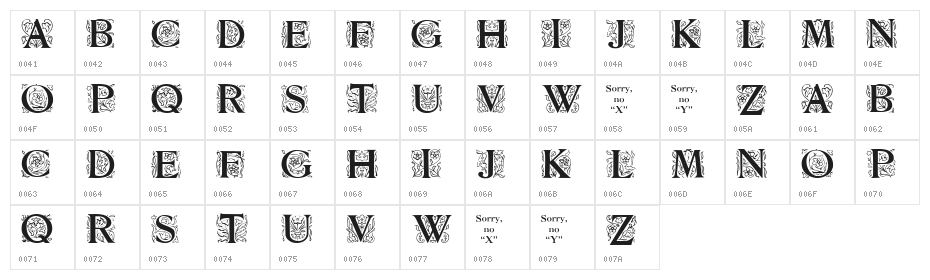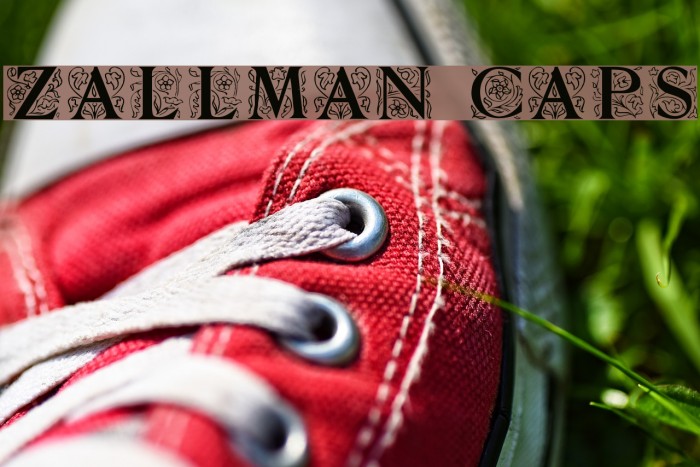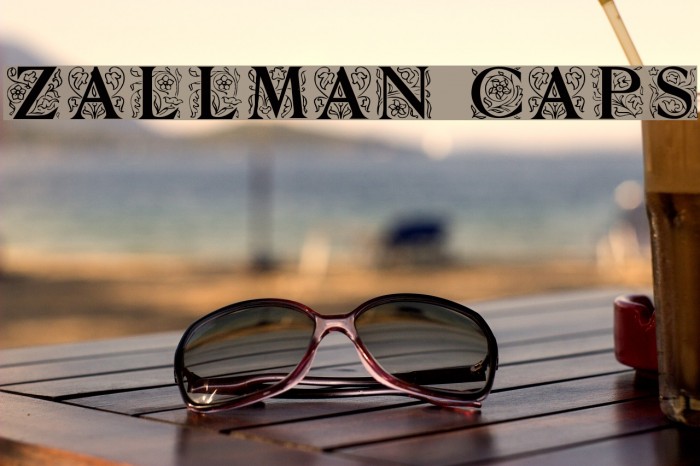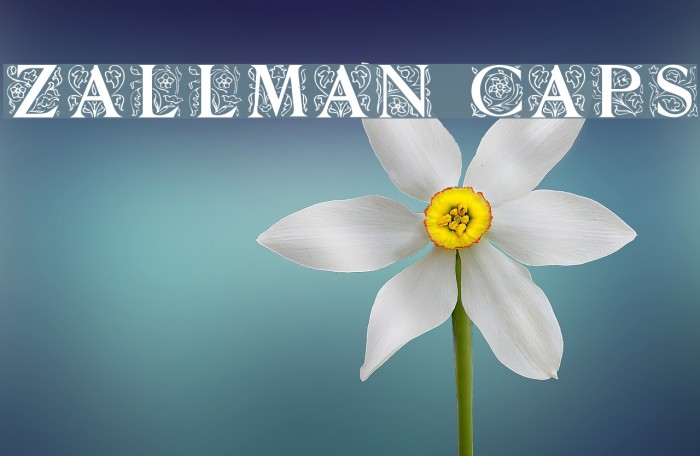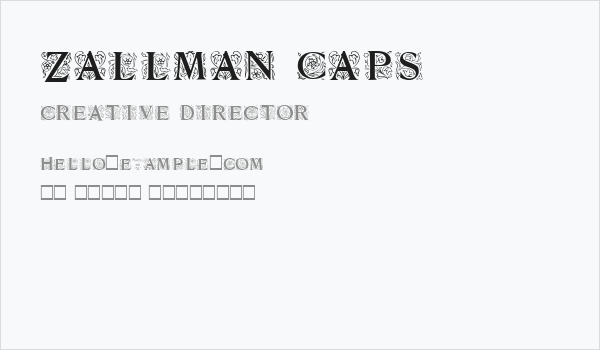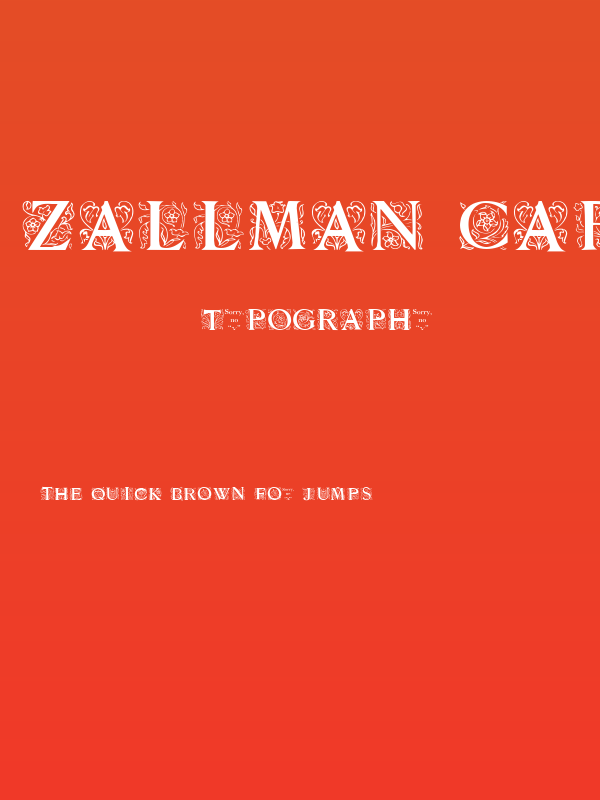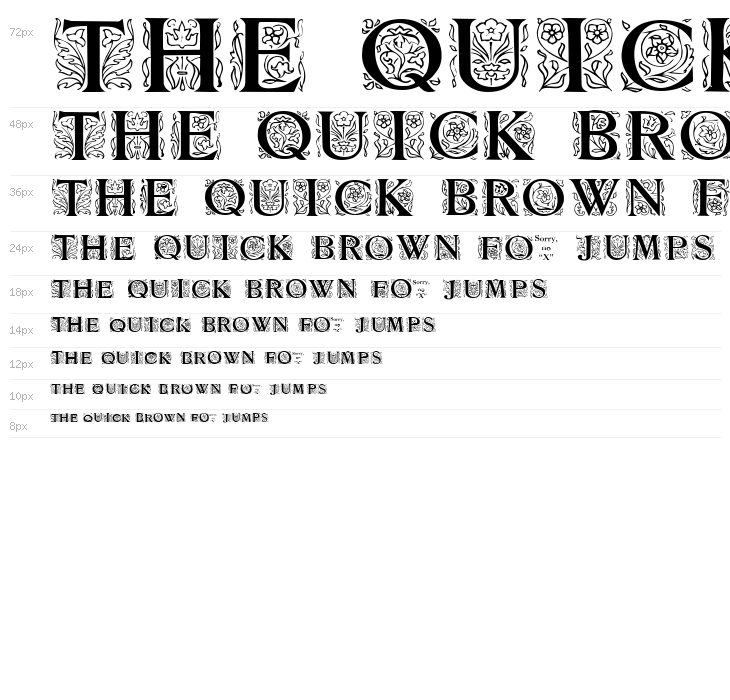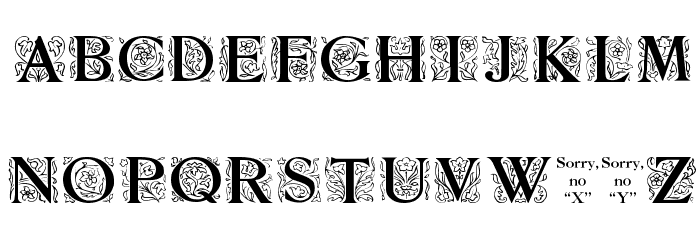
Zallman Caps Font
Zallman Caps Description
This font features an ornate and decorative style, with intricate floral and vine-like patterns filling each letter. The uppercase letters are bold and eye-catching, making them ideal for creating a striking visual impact. The absence of lowercase letters and numbers suggests a focus on decorative use rather than practical text applications. The detailed embellishments within each character give the font a vintage and artistic feel, reminiscent of old manuscripts or decorative signage. The overall design is highly stylized, making it suitable for projects that require a touch of elegance and sophistication.
| Overall Style | Vintage, Decorative |
| Use Case | Headlines, Logos, Decorative text |
| Proposed Projects | Ideal for wedding invitations, vintage-themed posters, decorative signage, and artistic projects requiring an elegant touch. |